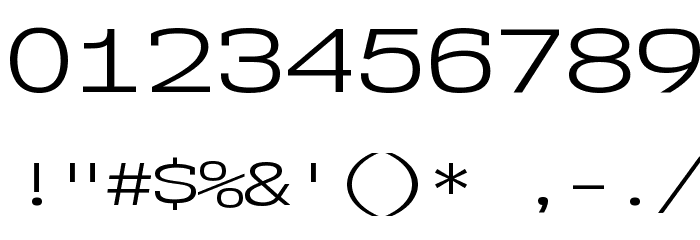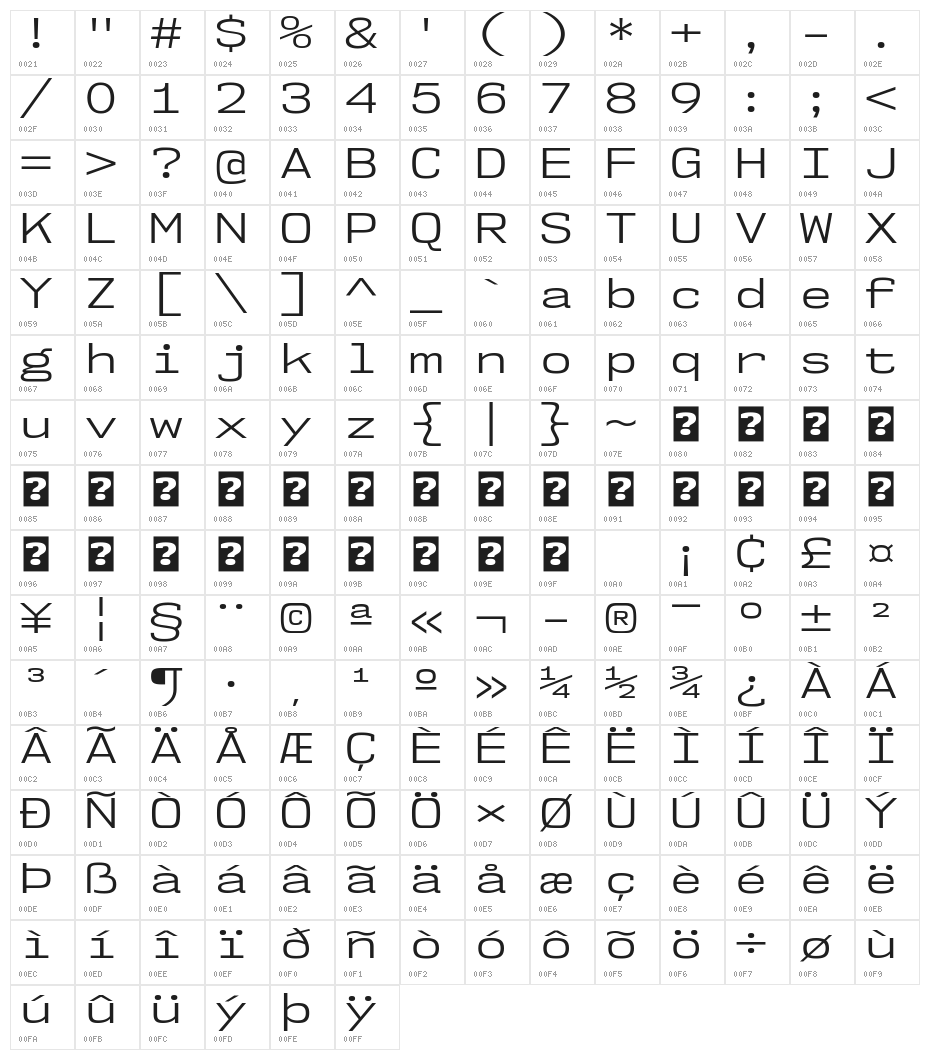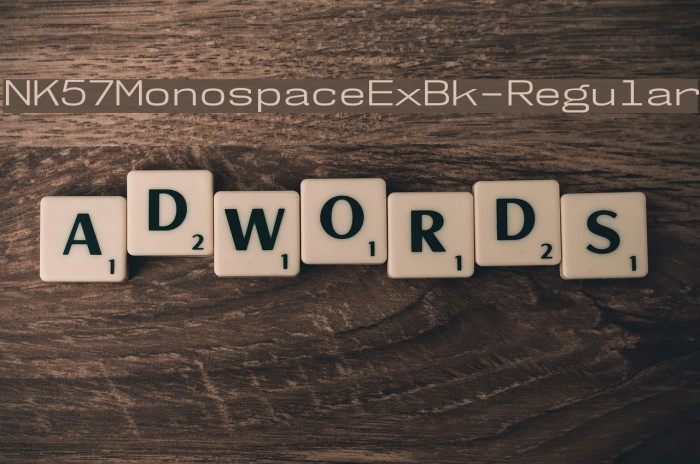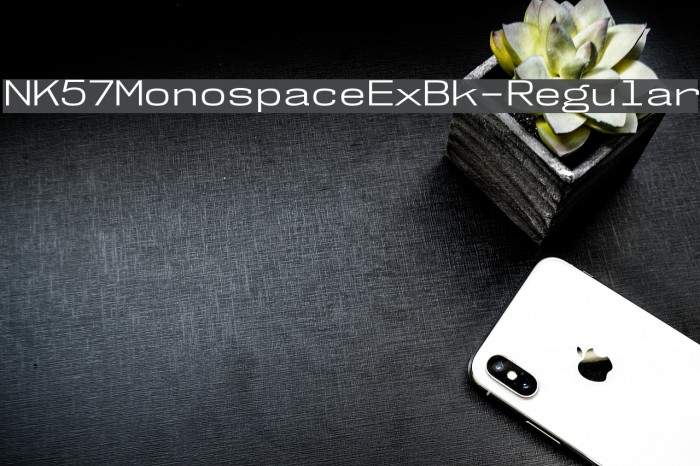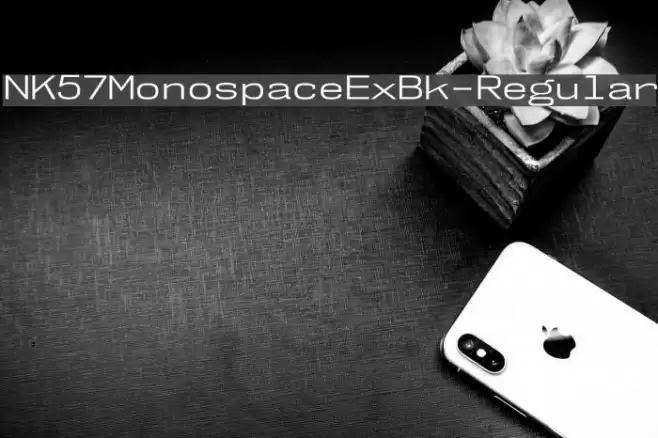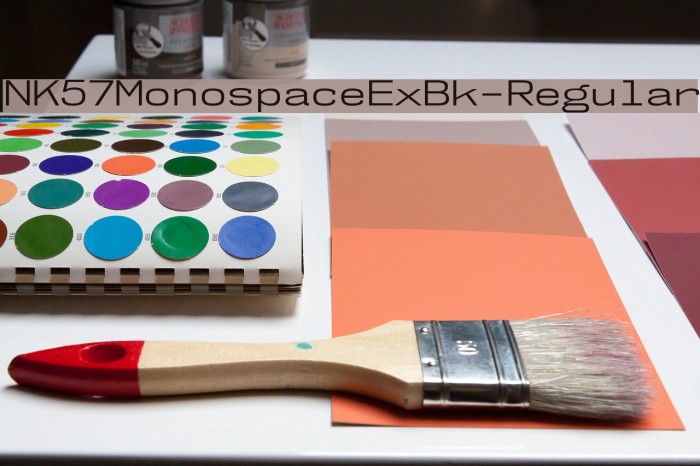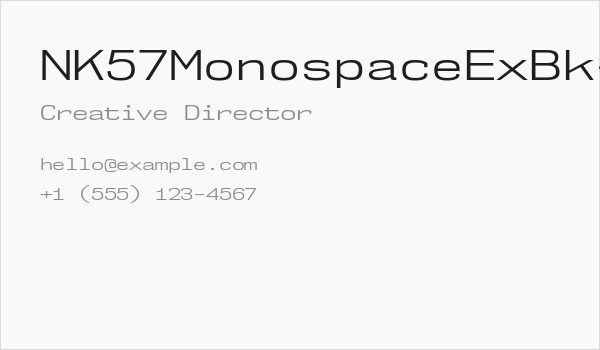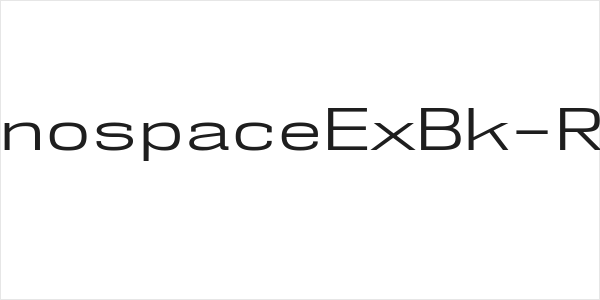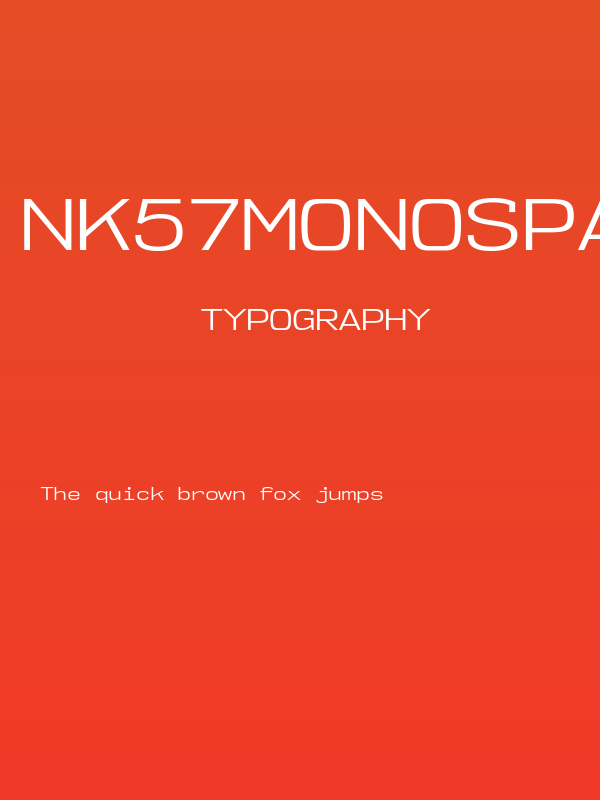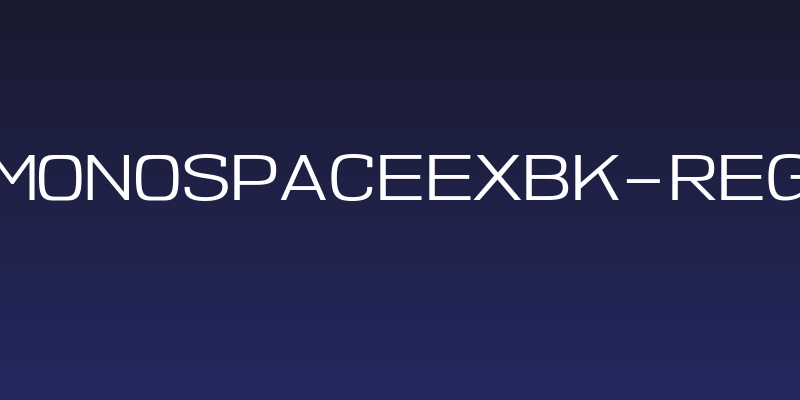
NK57MonospaceExBk-Regular Font
NK57MonospaceExBk-Regular Description
This typeface is a clean and precise monospaced font, characterized by its uniformity and clarity. Each character occupies the same amount of horizontal space, making it ideal for coding and tabular data. The design is straightforward with minimal contrast between thick and thin strokes, providing a balanced and harmonious appearance. The uppercase and lowercase letters are well-proportioned, and the numerals are clear and easily distinguishable. Special characters are distinct and maintain the overall aesthetic of the font, ensuring readability and functionality.
| Use Case | Coding, Technical documentation, Data tables |
| Proposed Projects | Perfect for programming environments, technical documentation, and data tables. |